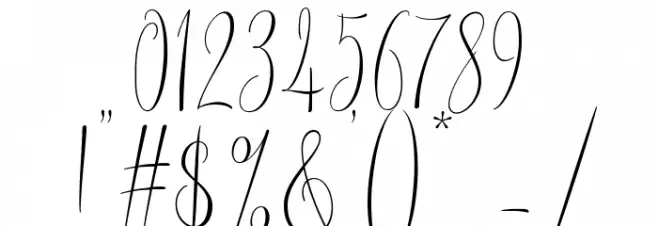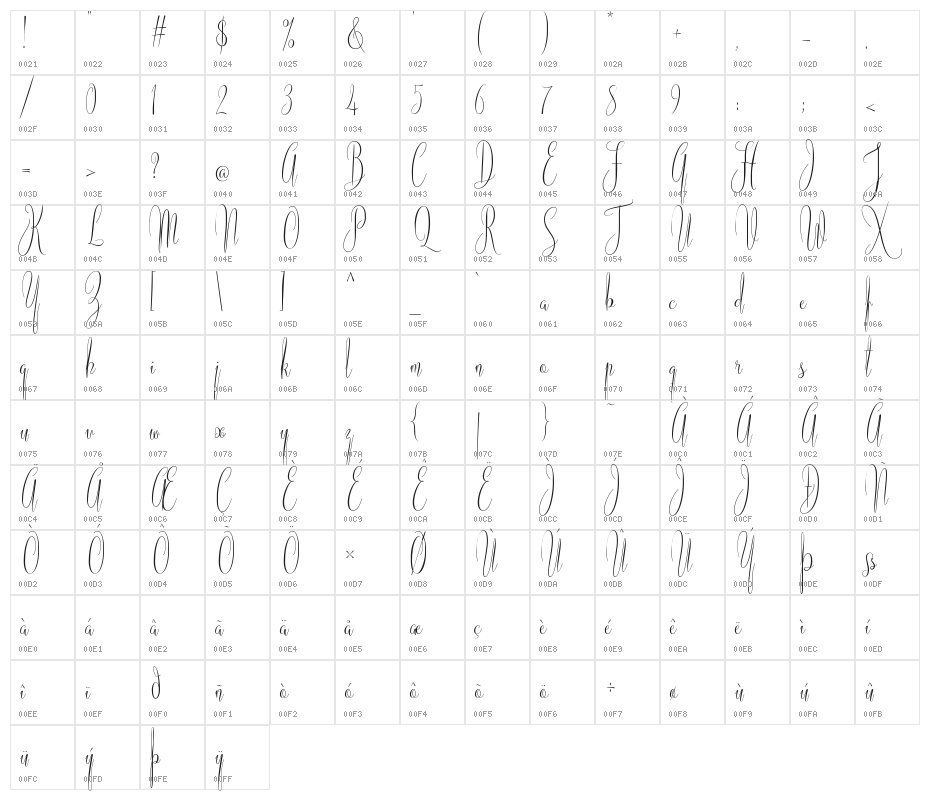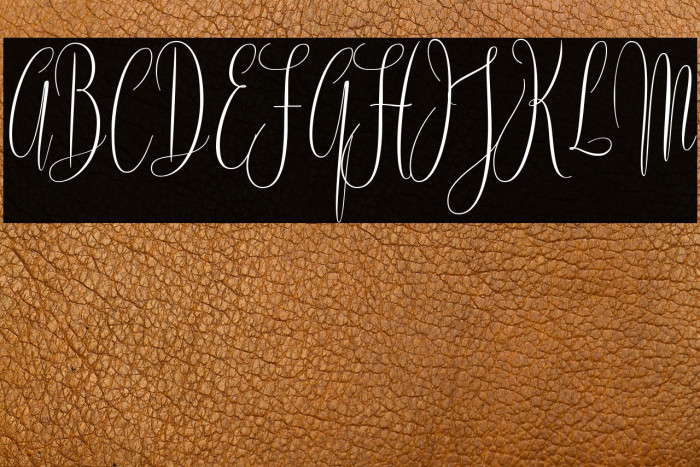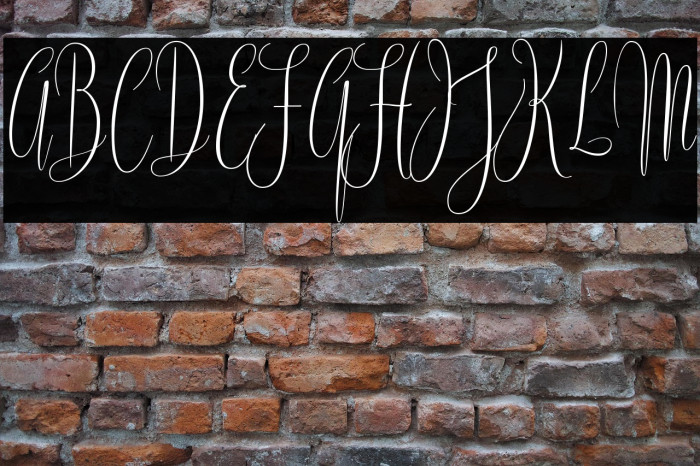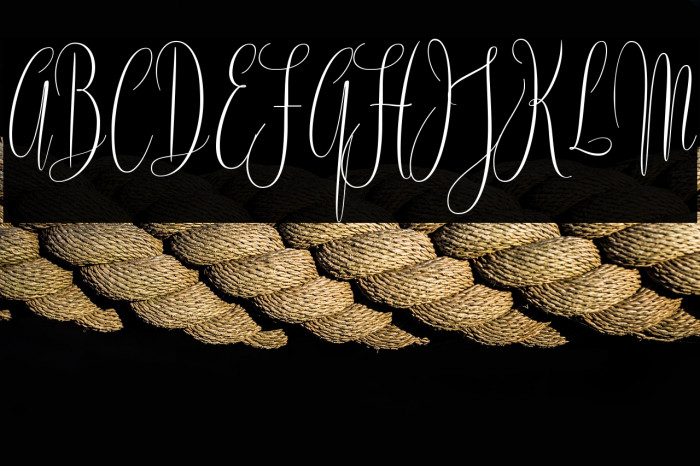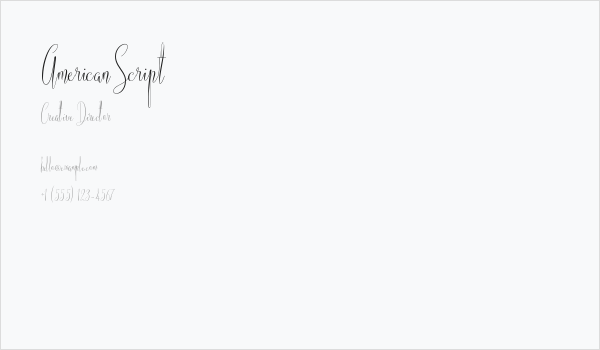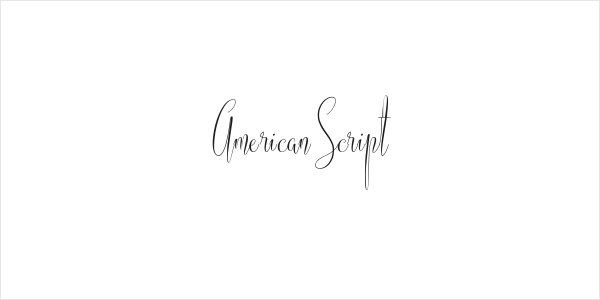
AmericanScript Font
AmericanScript Description
This elegant script font features a sophisticated and flowing design, characterized by its graceful curves and intricate details. The uppercase letters are tall and slender, with delicate loops and flourishes that add a touch of refinement. The lowercase letters maintain a consistent flow, seamlessly connecting to create a harmonious appearance. The numerals are stylish and maintain the overall aesthetic, while the special characters are thoughtfully integrated to complement the script style. This font exudes a sense of elegance and sophistication, making it ideal for formal and decorative applications.
An elegant script font with graceful curves and intricate details from Uncategorized fonts.
- Font: AmericanScript
- Proposed Projects: Ideal for wedding invitations, elegant branding, high-end product packaging, and decorative headlines.
- Overall Style: Elegant, Sophisticated
- Use Case: Invitations, Branding, Decorative Headlines
AmericanScript UPPERCASE
AmericanScript LOWERCASE
AmericanScript OTHER CHARS